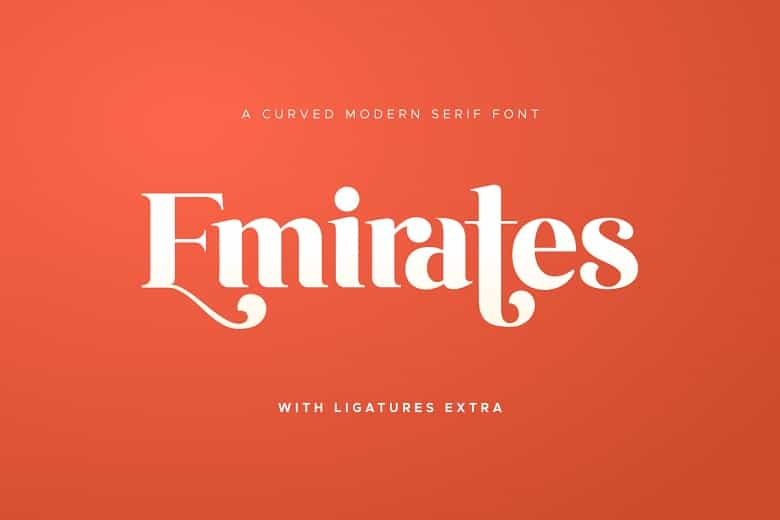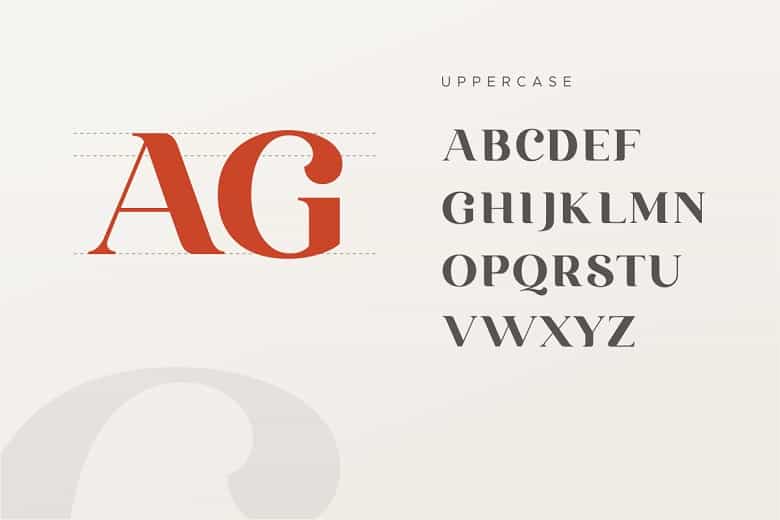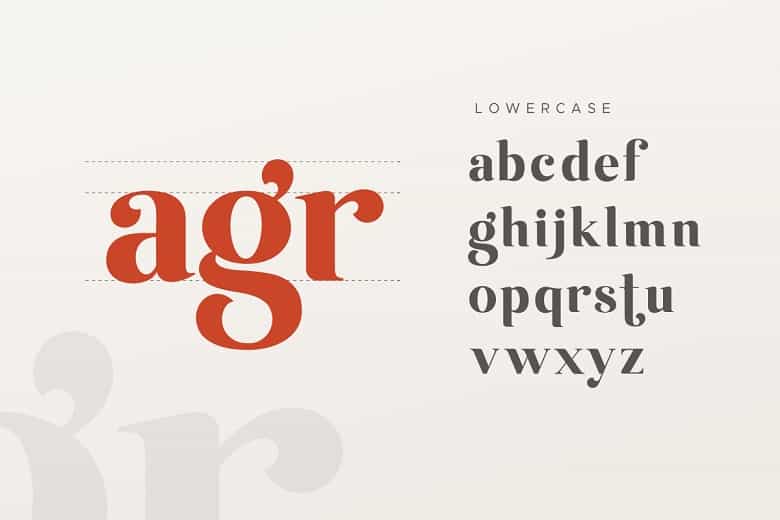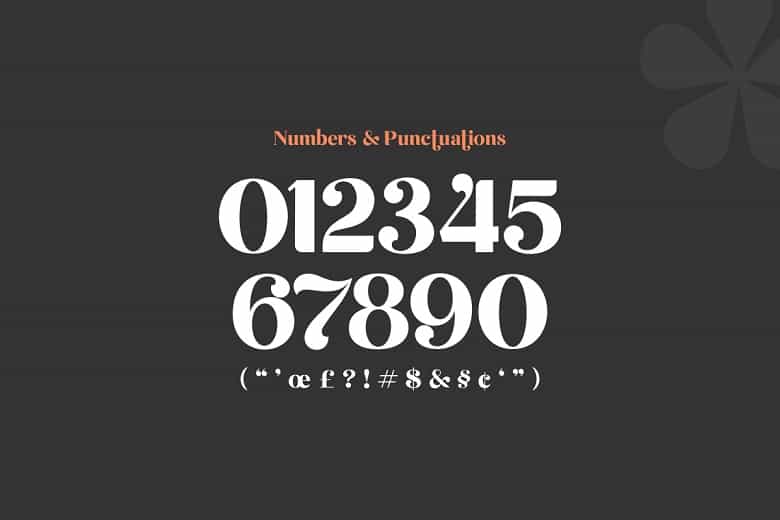
Emirates is a modern serif font, with a great curve and ligatures of the letters. This font is a display serif font with moderate contrast which is suitable for branding purposes, logos, weddings, social media sites, advertisements, packaging, products, labels, photos, invitations, stationery, among other projects since it has high readability.